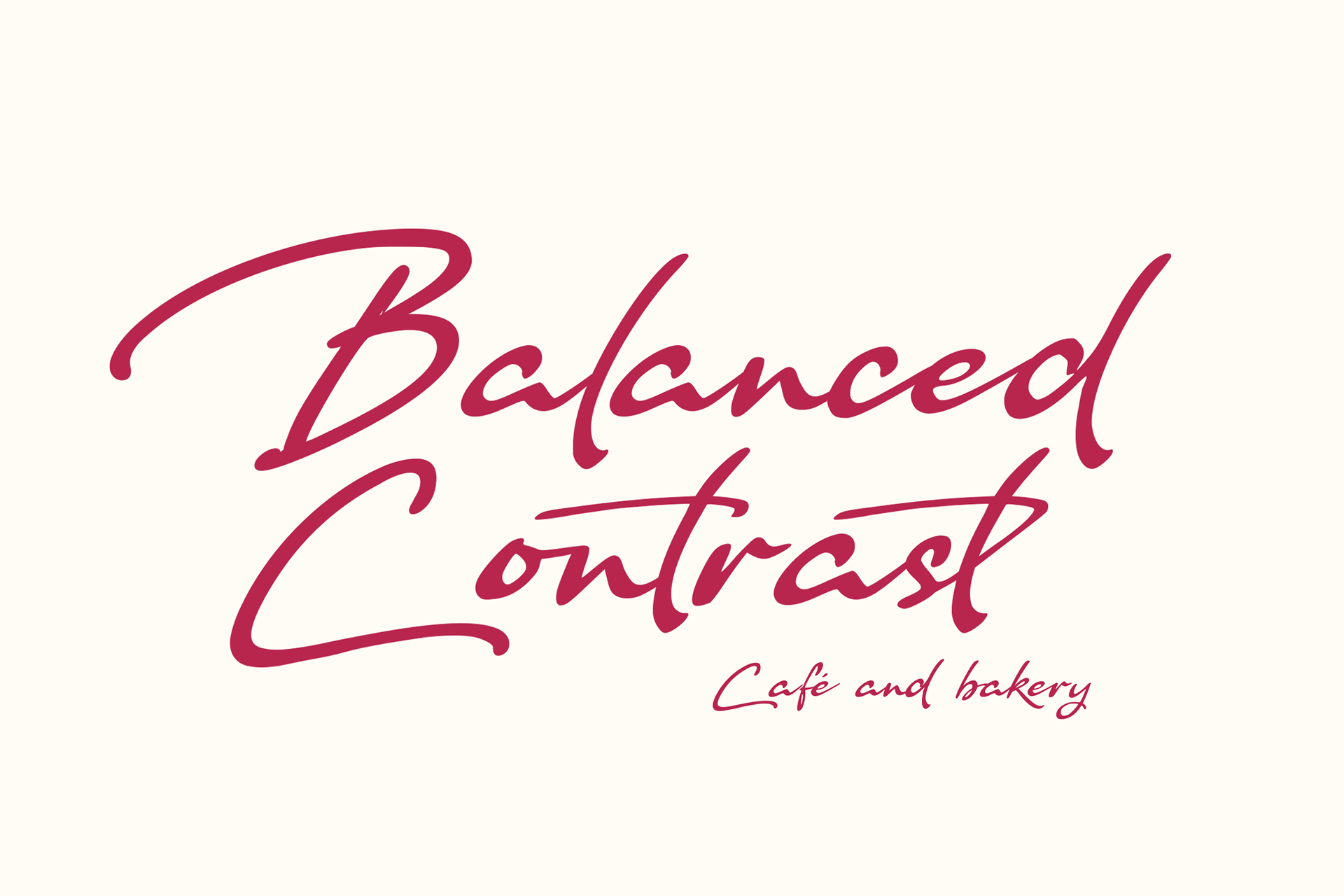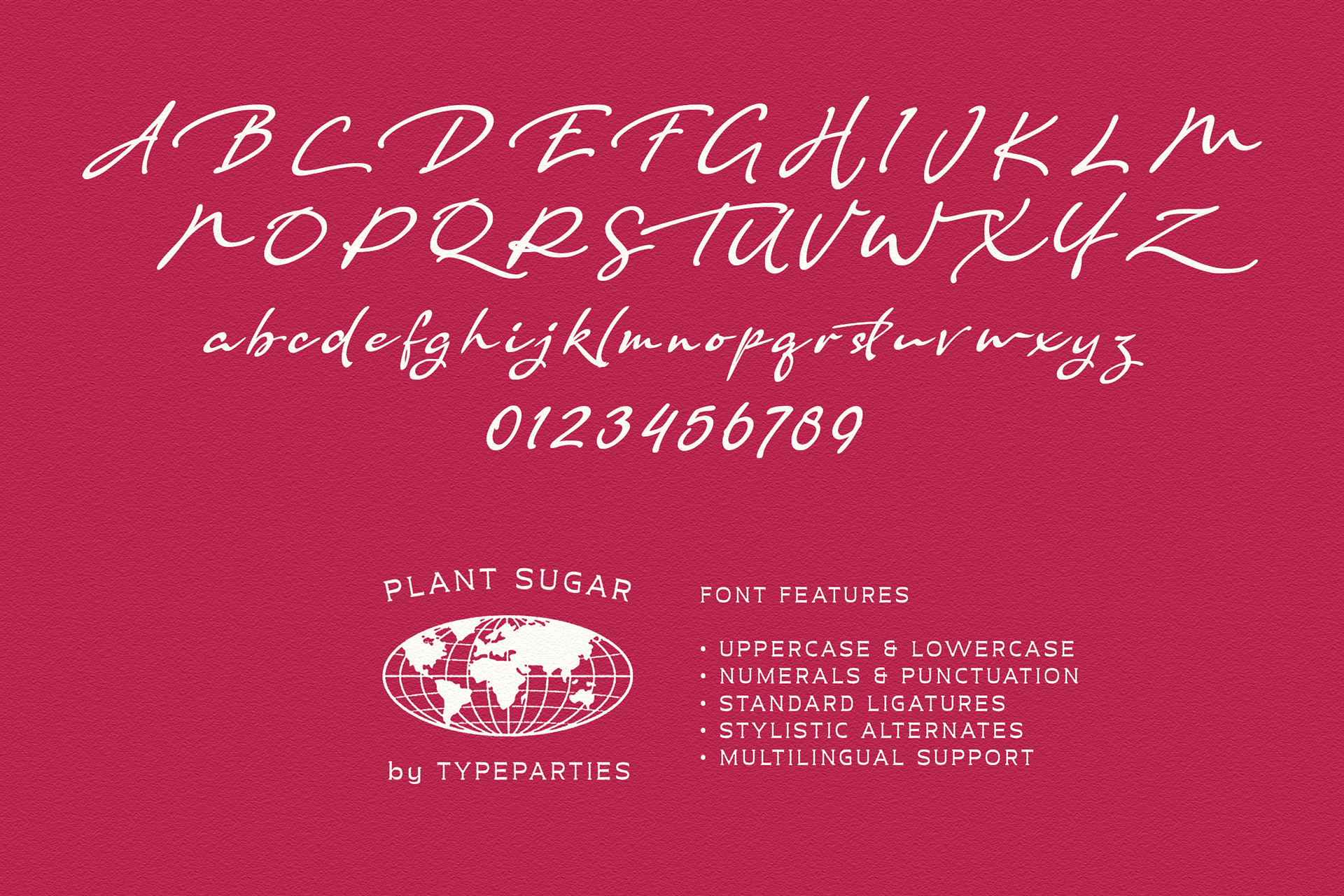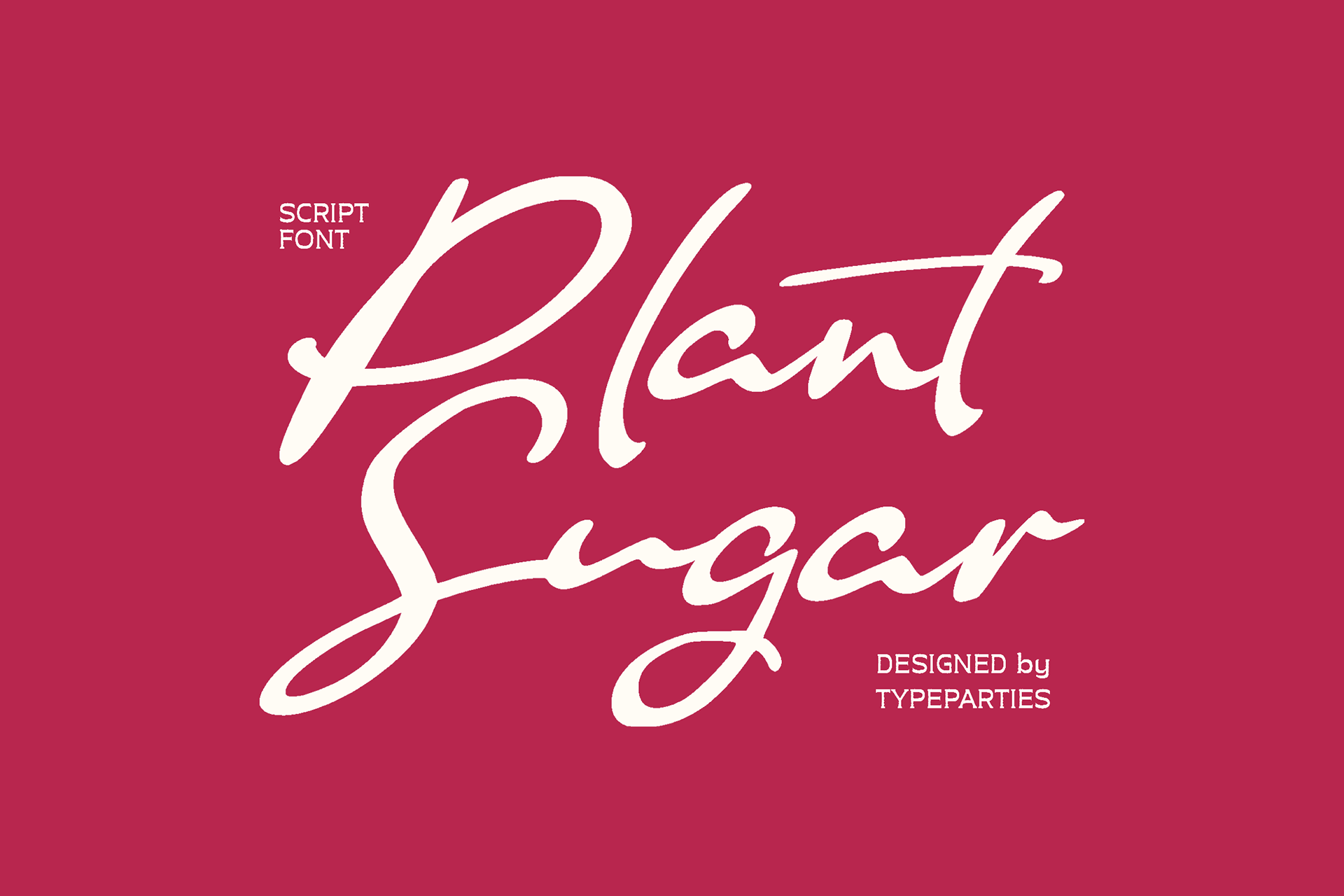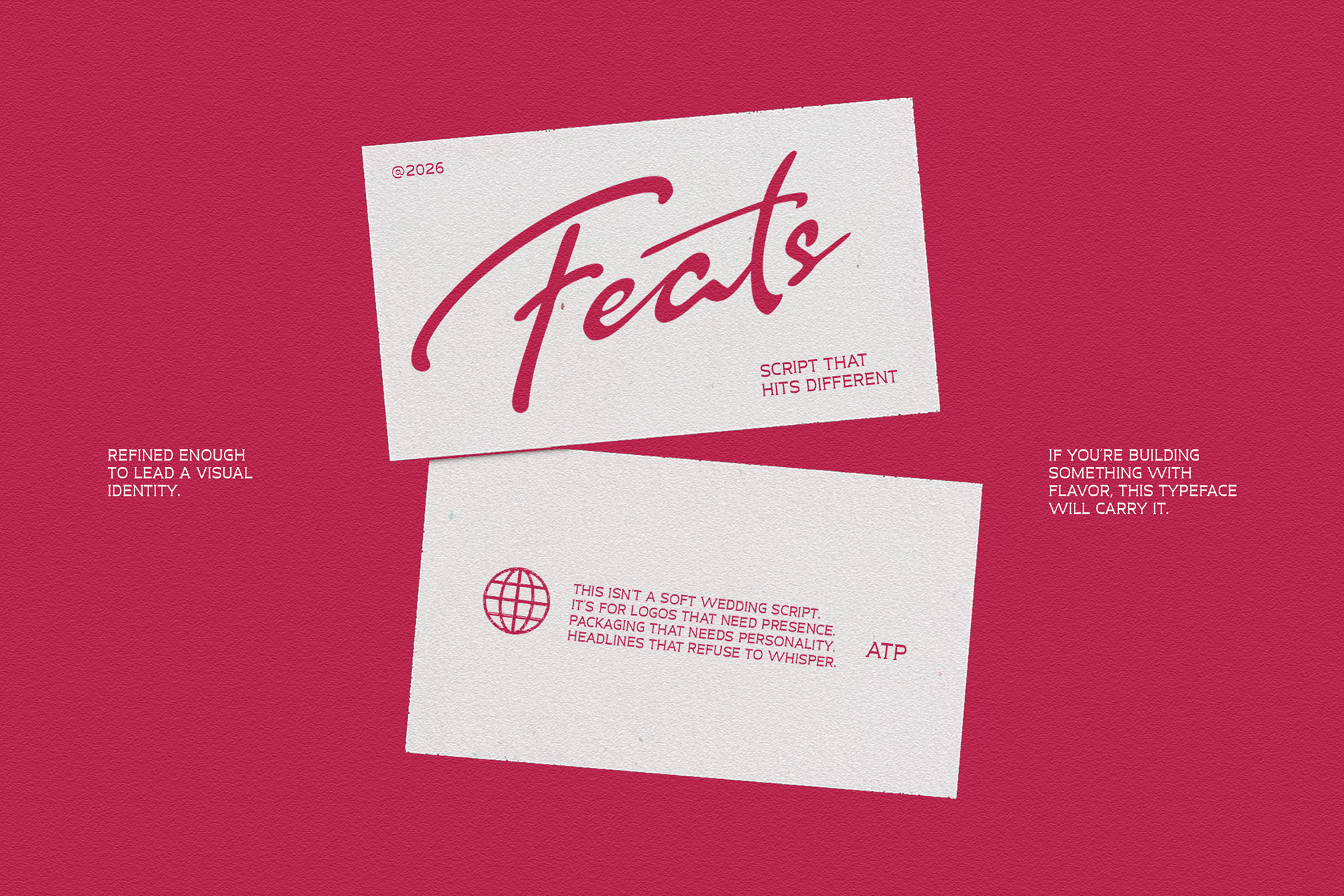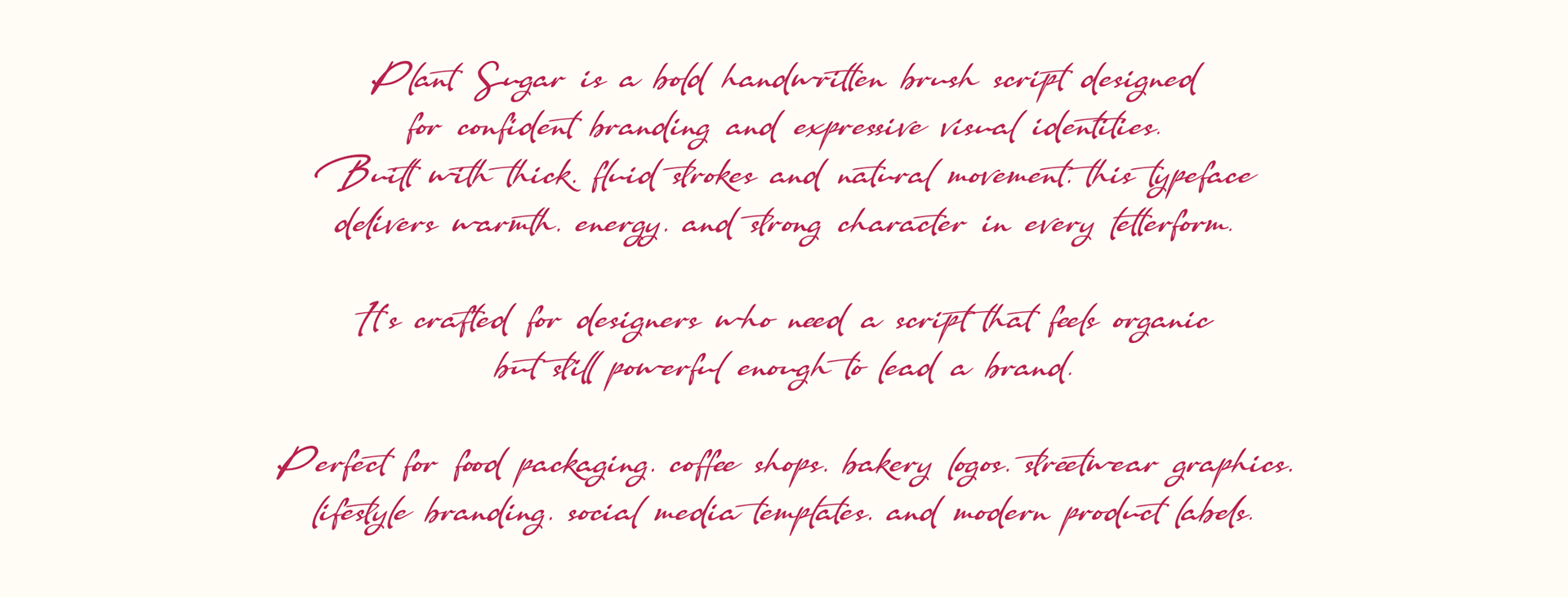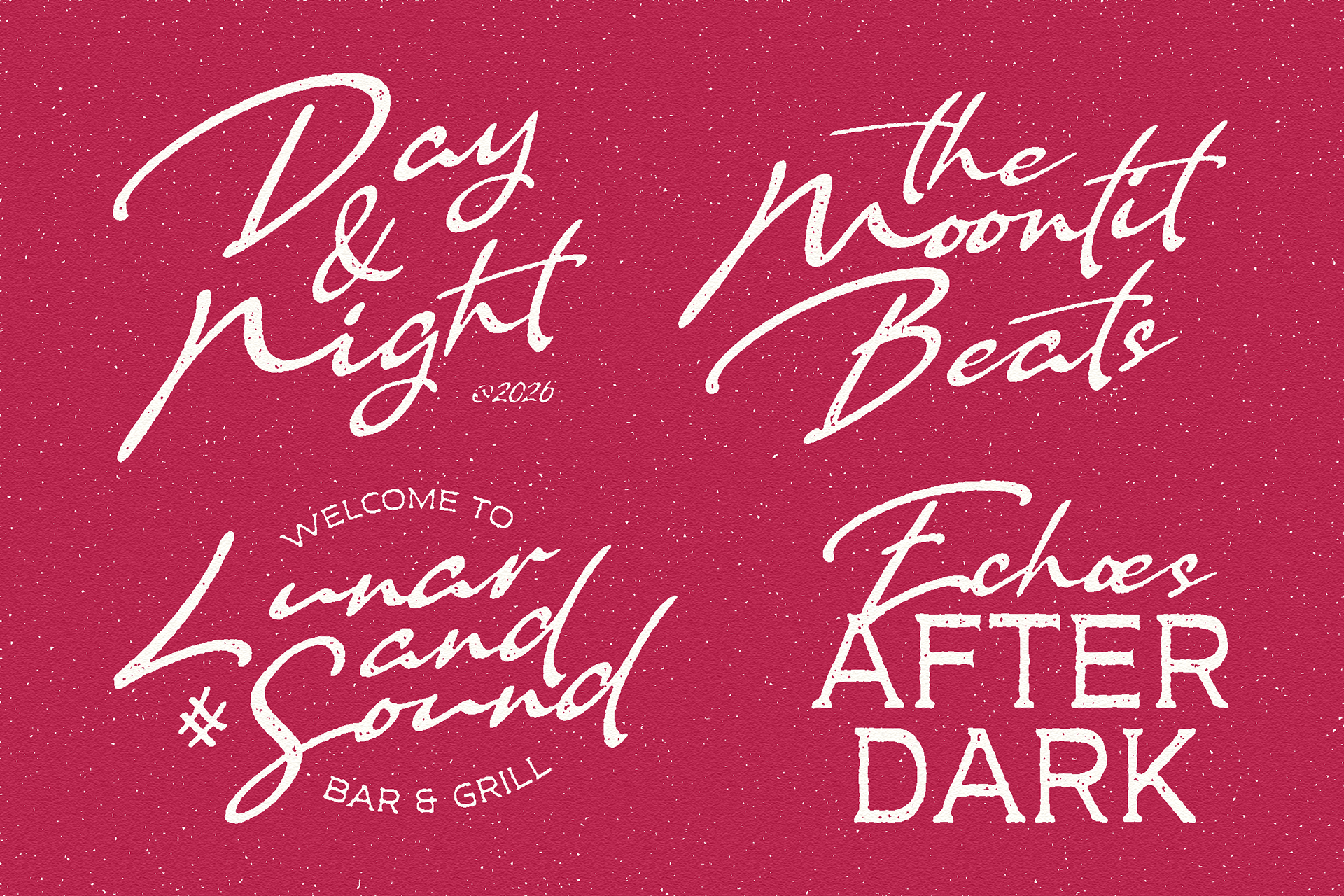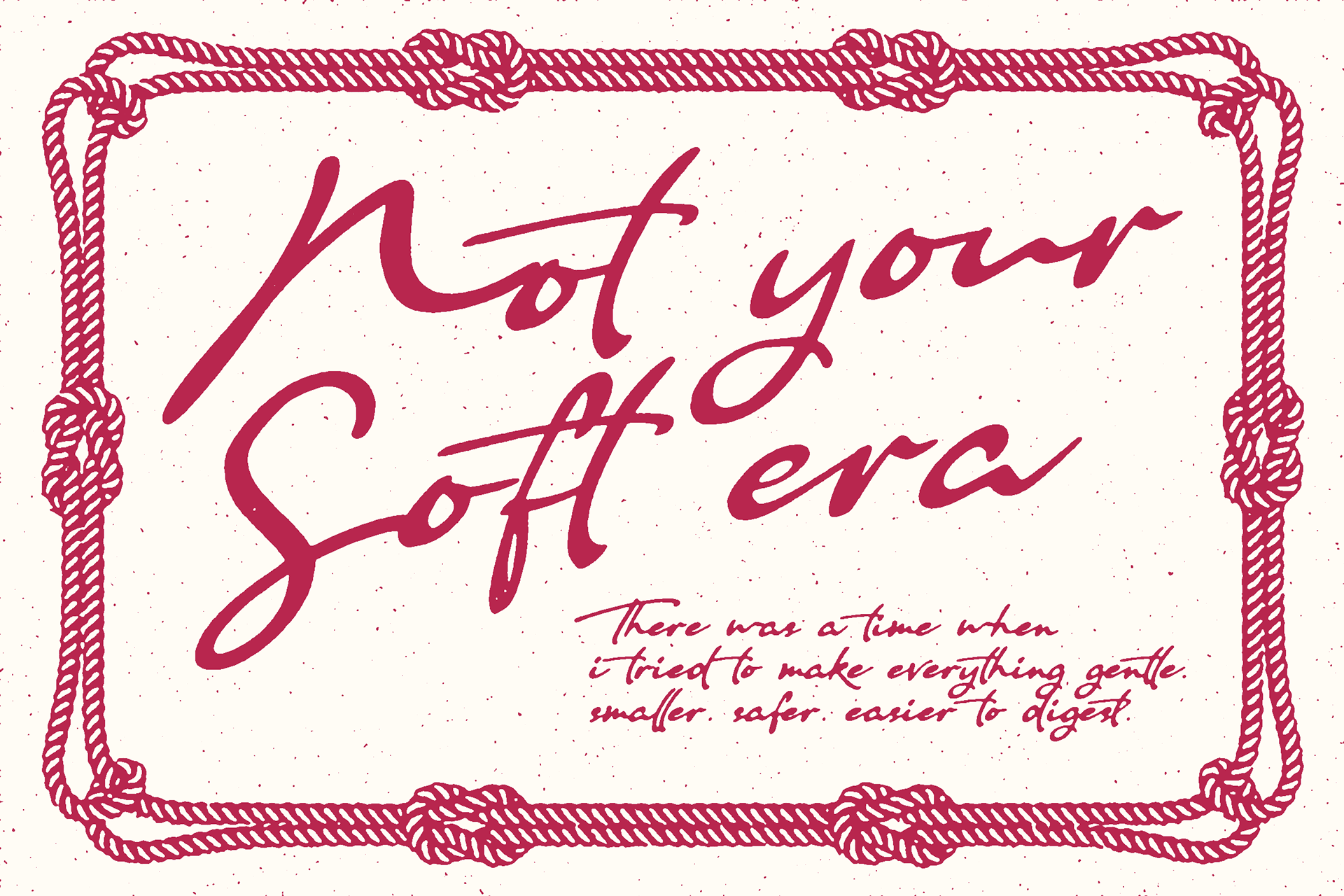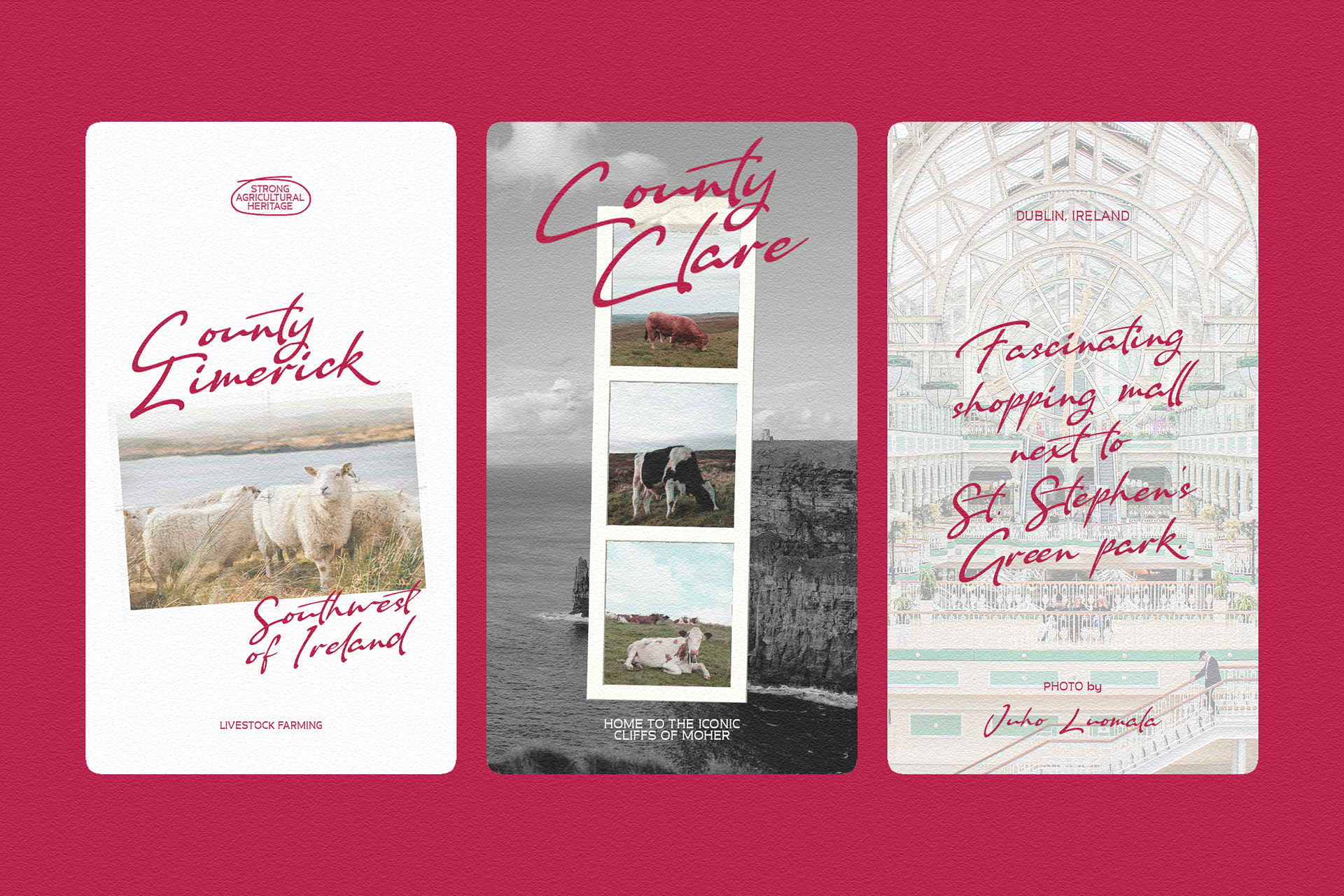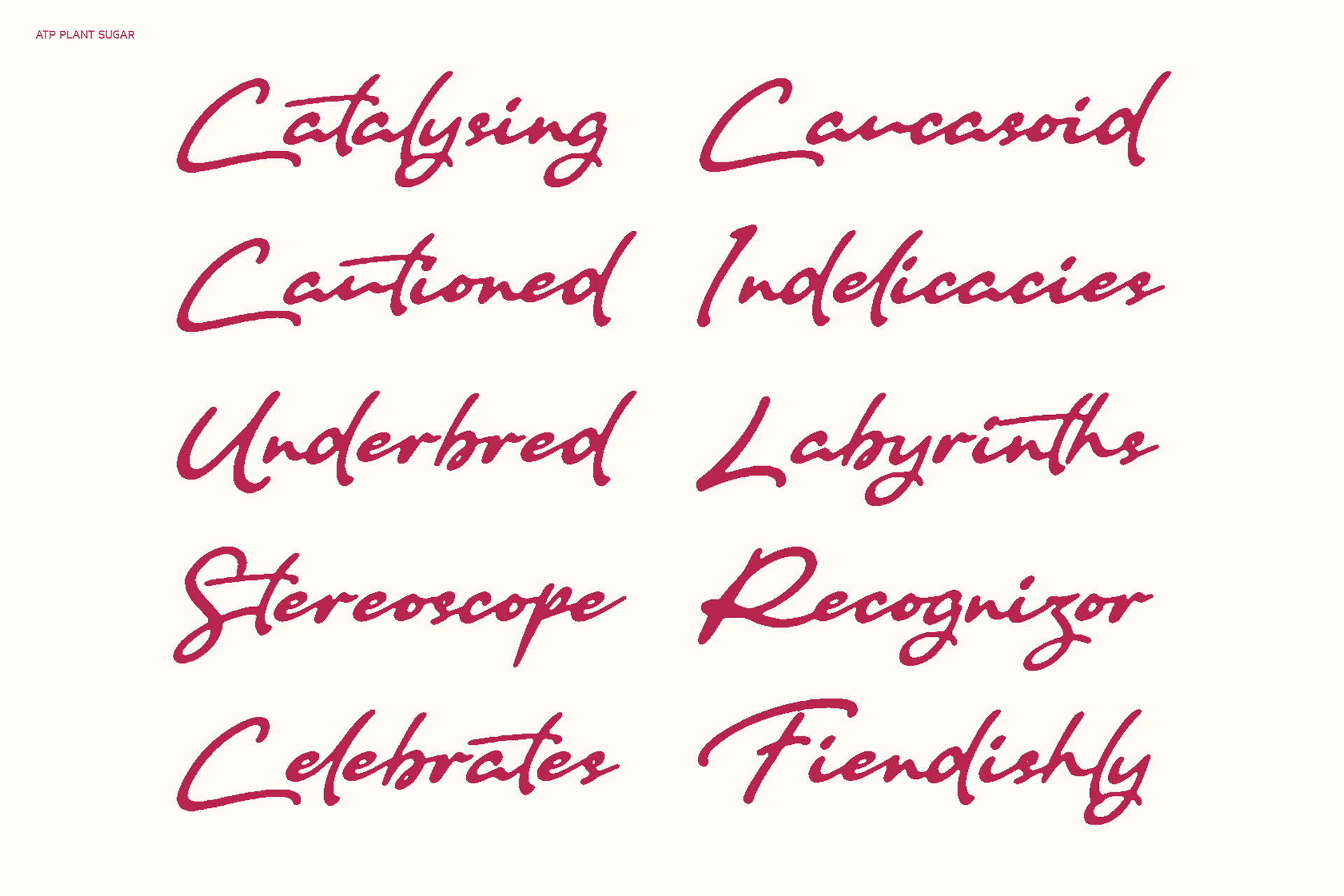
Plant Sugar is a bold handwritten brush script designed for confident branding and expressive visual identities. Built with thick, fluid strokes and natural movement, this typeface delivers warmth, energy, and strong character in every letterform.
It’s crafted for designers who need a script that feels organic but still powerful enough to lead a brand.
Perfect for food packaging, coffee shops, bakery logos, streetwear graphics, lifestyle branding, social media templates, and modern product labels.